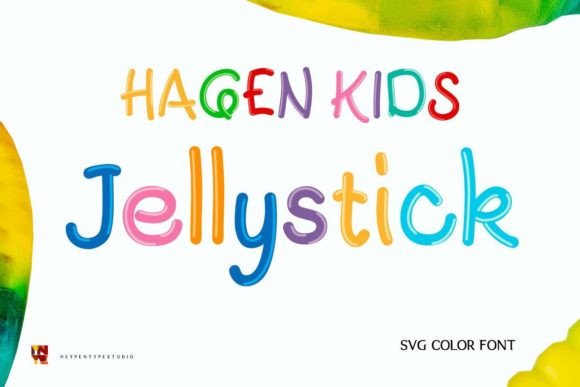
Introducing Hagen Kids Jellystick Font, a delightful and enchanting addition to your font collection. Created by heypentype, this colorful font family is specifically designed to add a touch of whimsy and playfulness to any project.
Are you working on a kids' project or a school assignment? Look no further! Hagen Kids Jellystick Font is the perfect choice. Its vibrant and warm color palette will instantly captivate young hearts and bring a sense of authenticity and joy to your creations.
Imagine the joy on children's faces when they see your beautifully crafted projects. With Hagen Kids Jellystick Font, you have the power to create eye-catching posters, charming invitations, captivating book covers, and so much more. Let your imagination run wild and watch as your designs come to life with this adorable and versatile font.